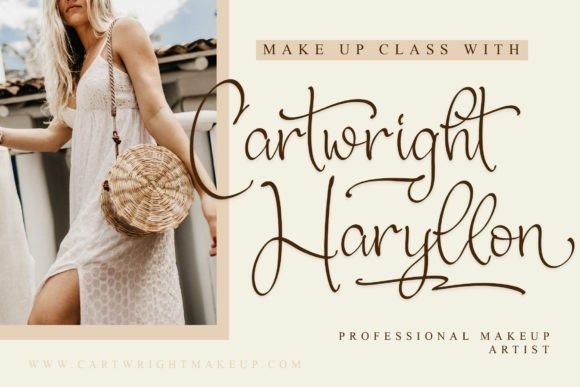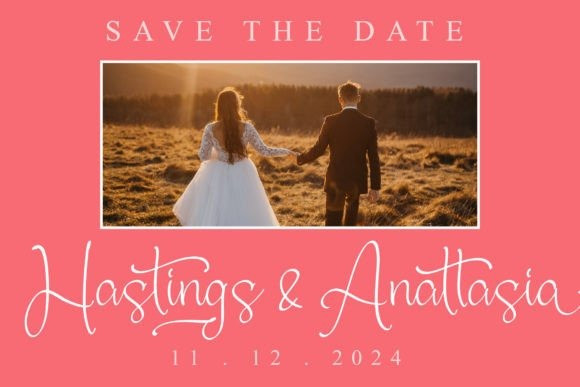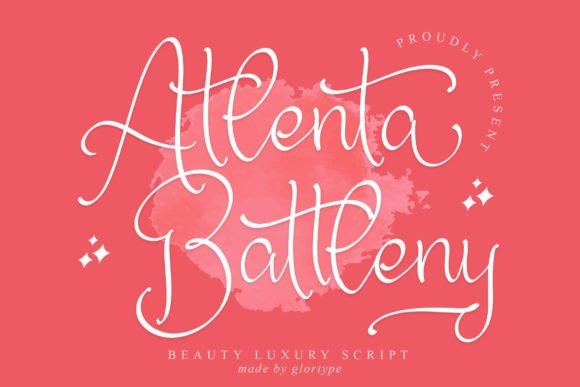
Atlenta Battleny Font
Atlenta Battleny – Beauty Luxury Script , from Glorytype Studio, suitable for any projects such as: logos, branding projects, homeware designs, product packaging, mugs, quotes, posters, shopping bags, t-shirts, book covers, name card, invitation cards, greeting cards, label, photography, watermark, special events, and all your other lovely projects that need a beautiful script taste.